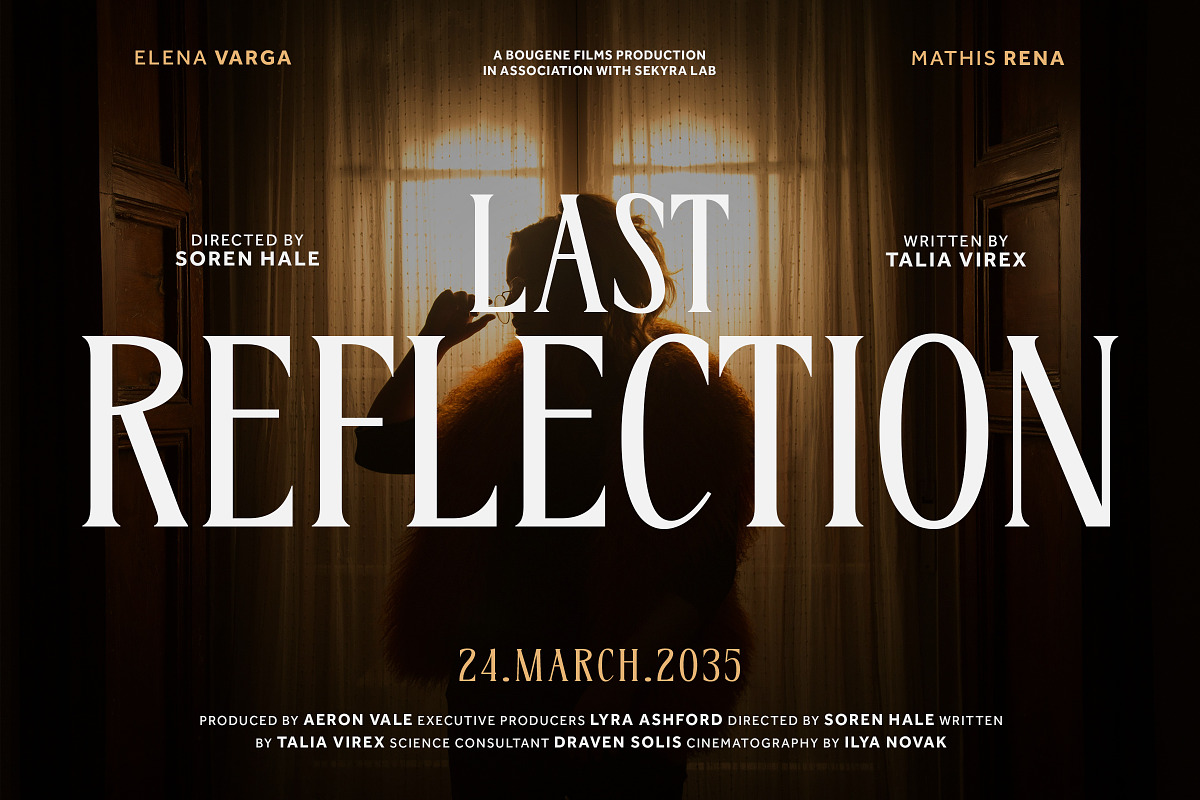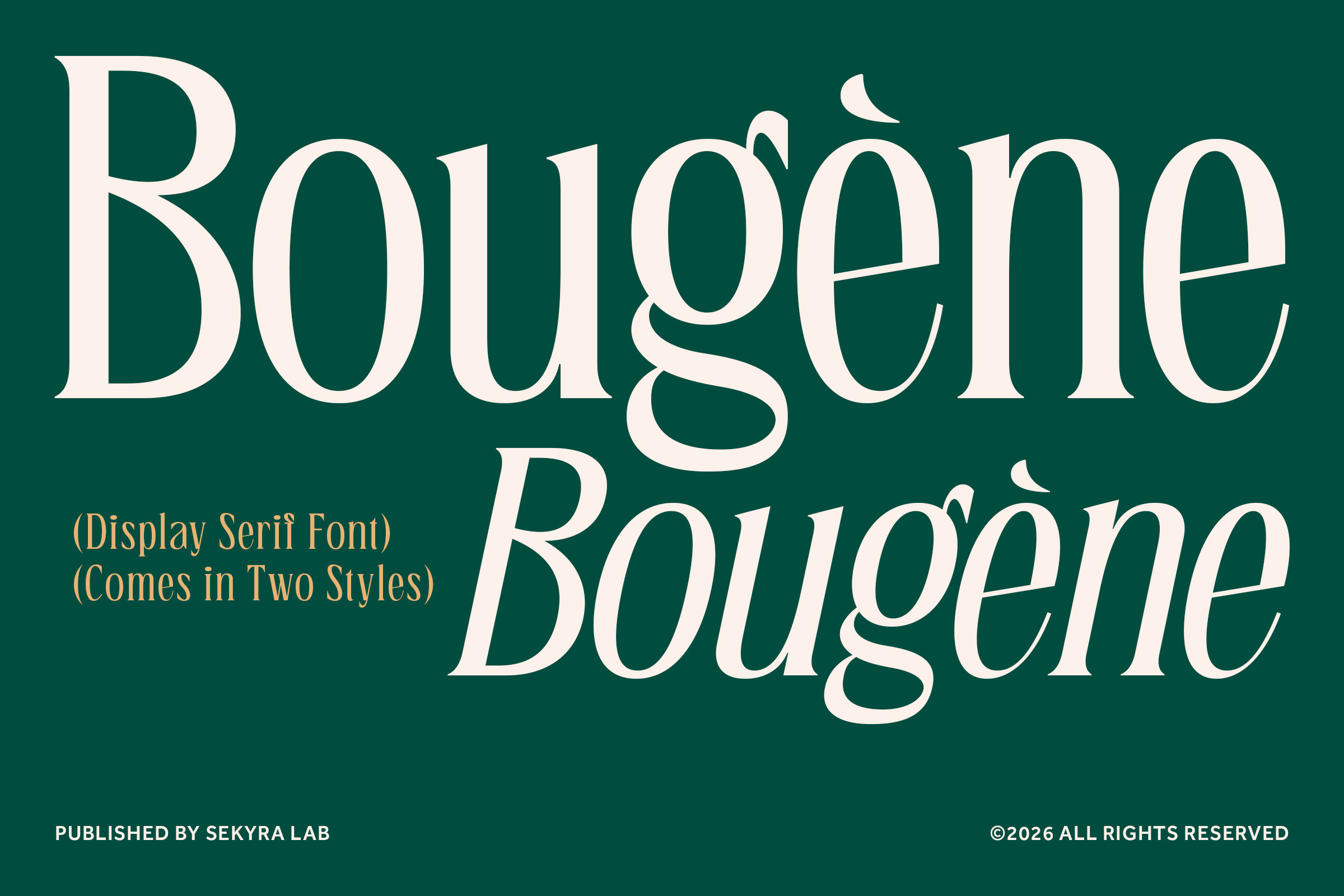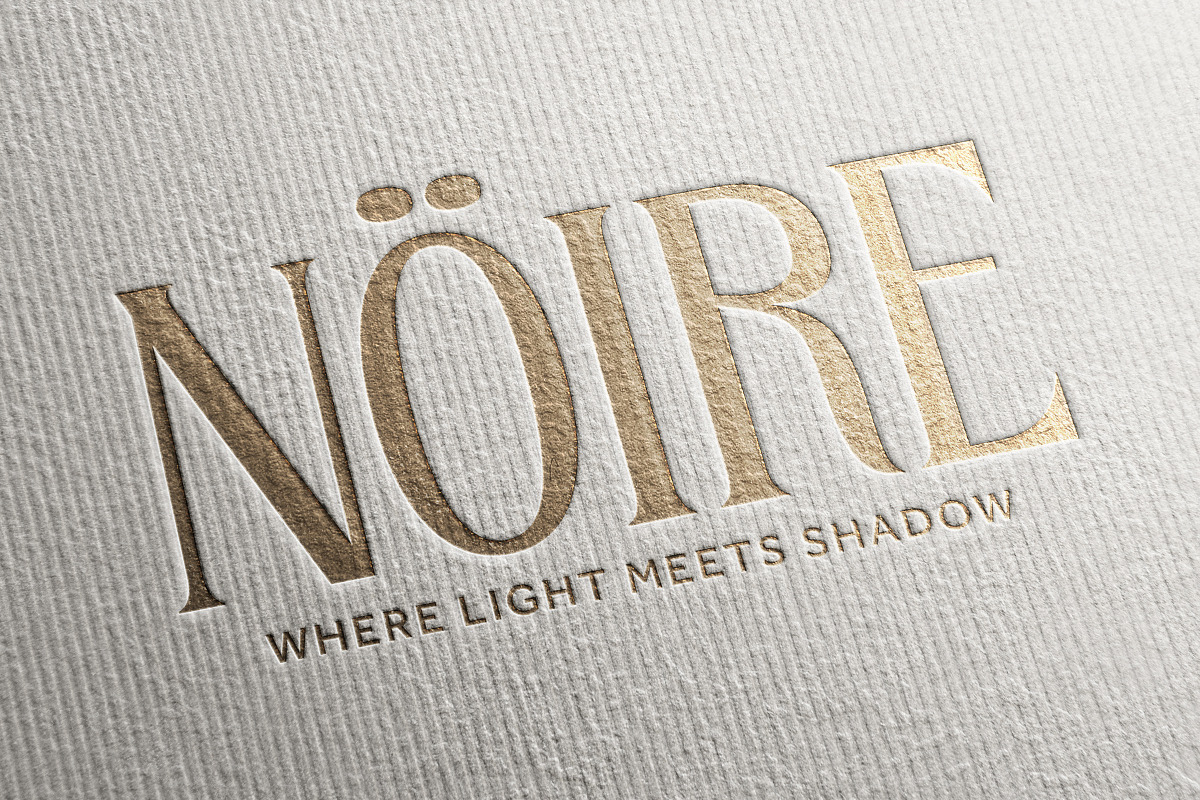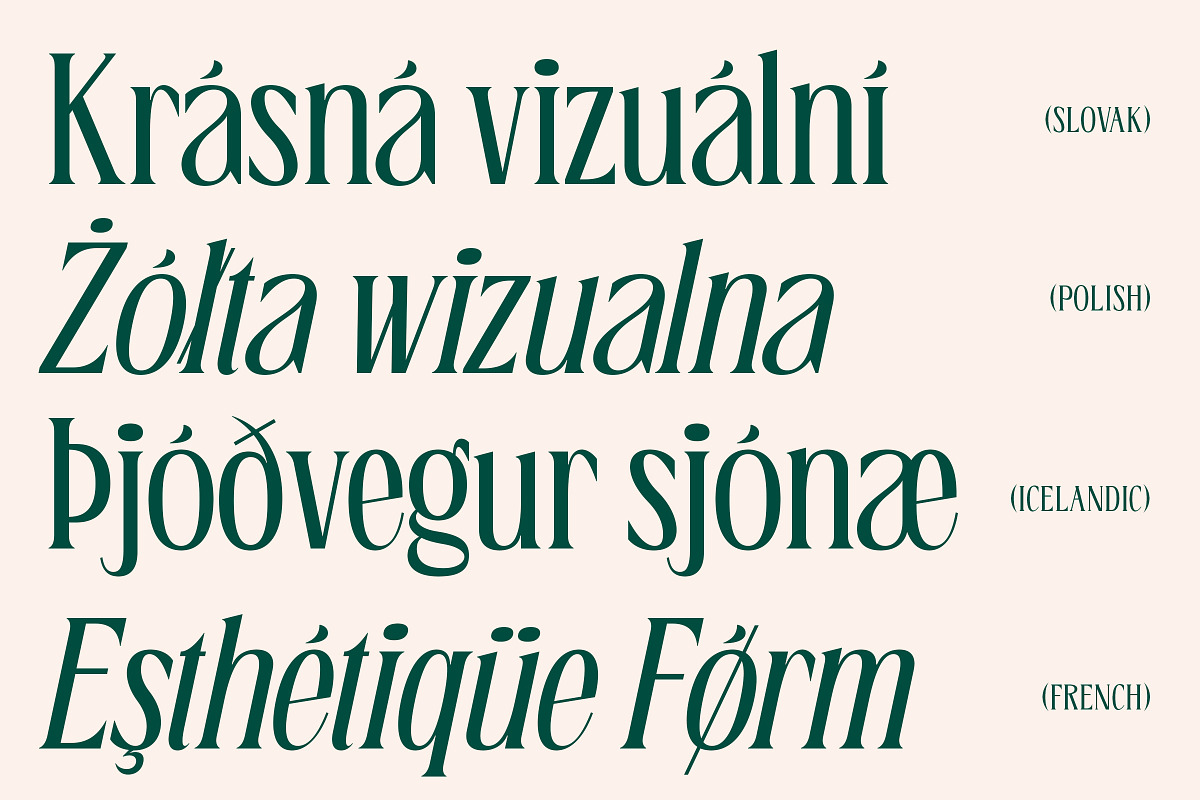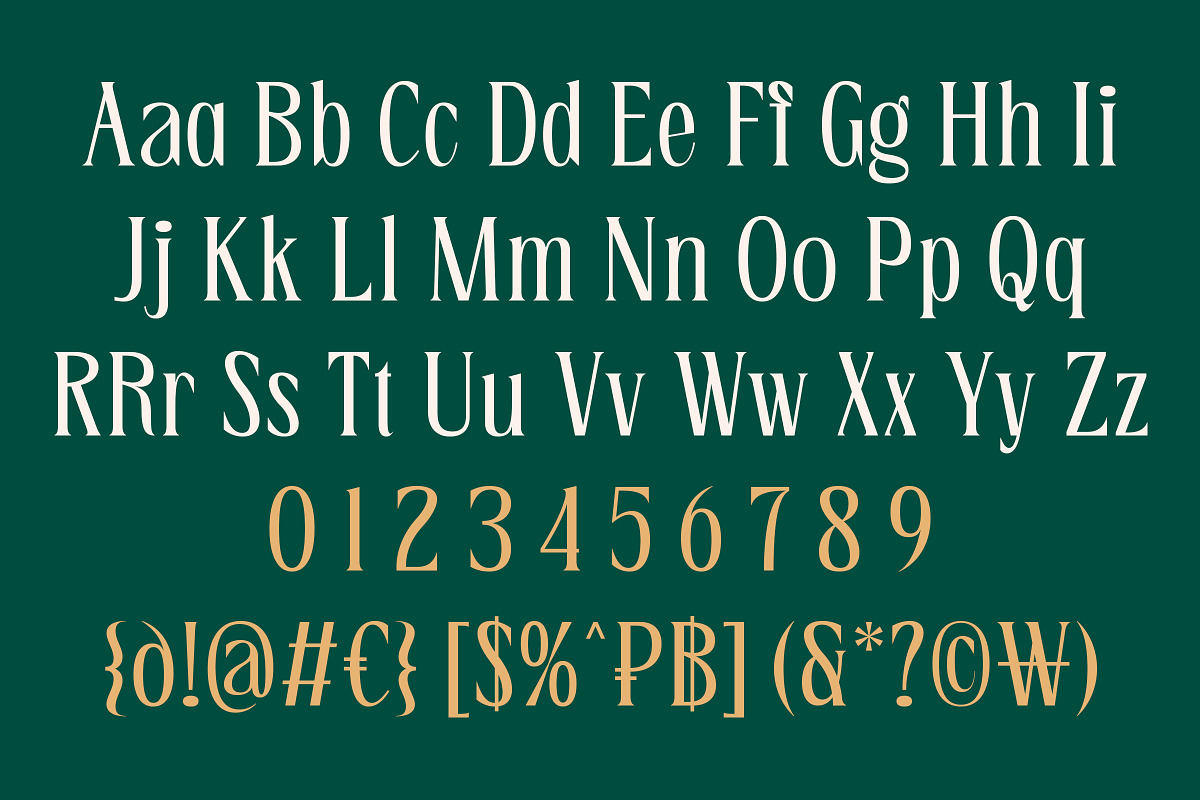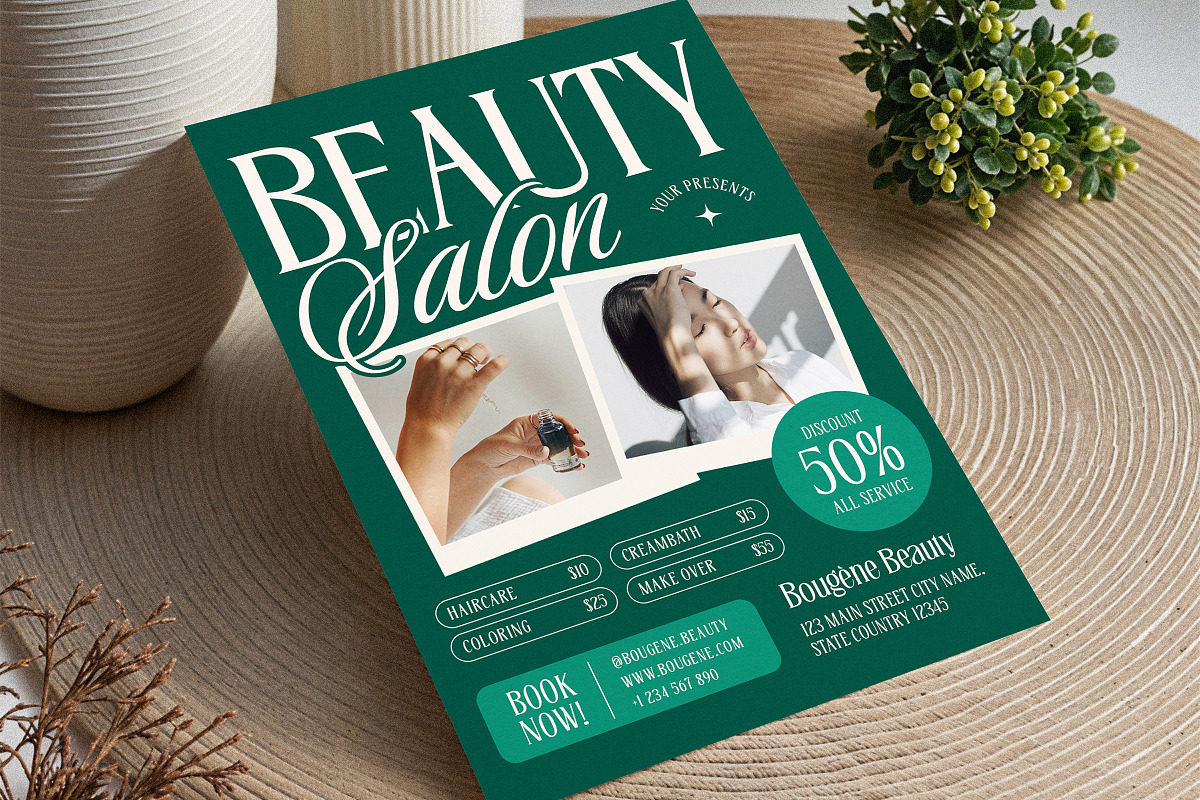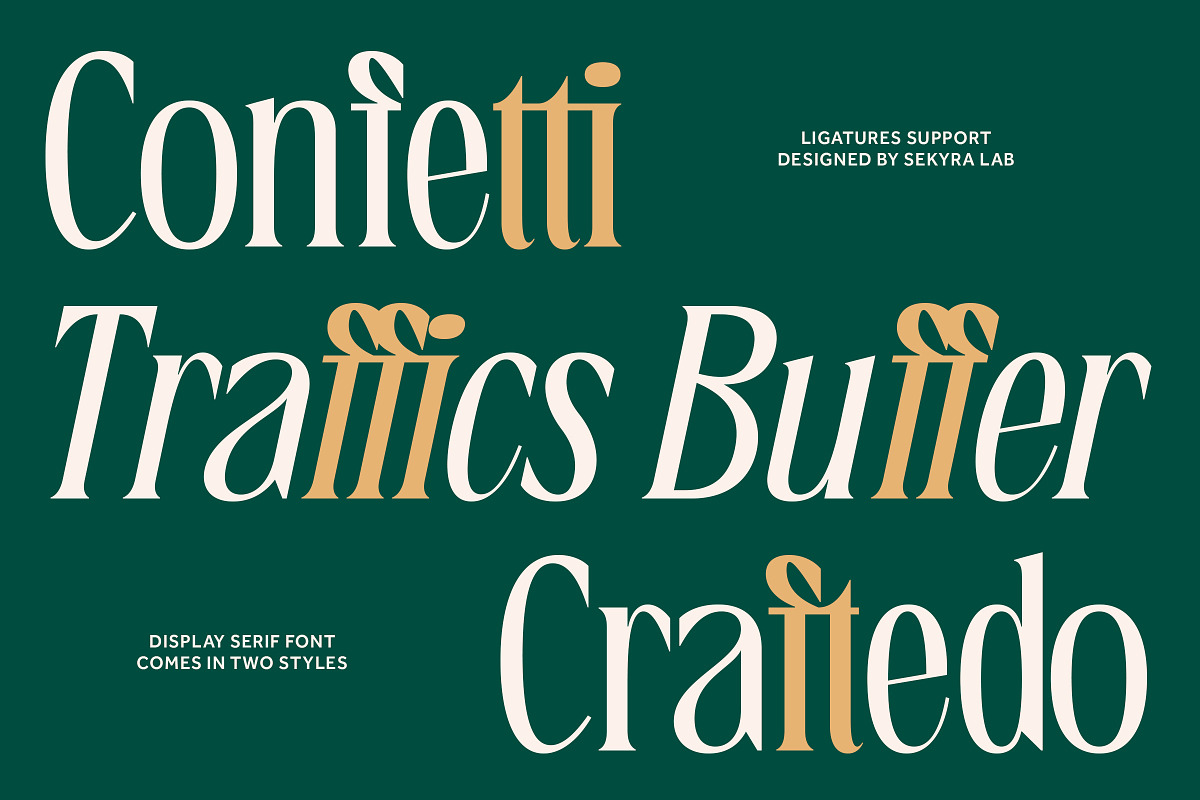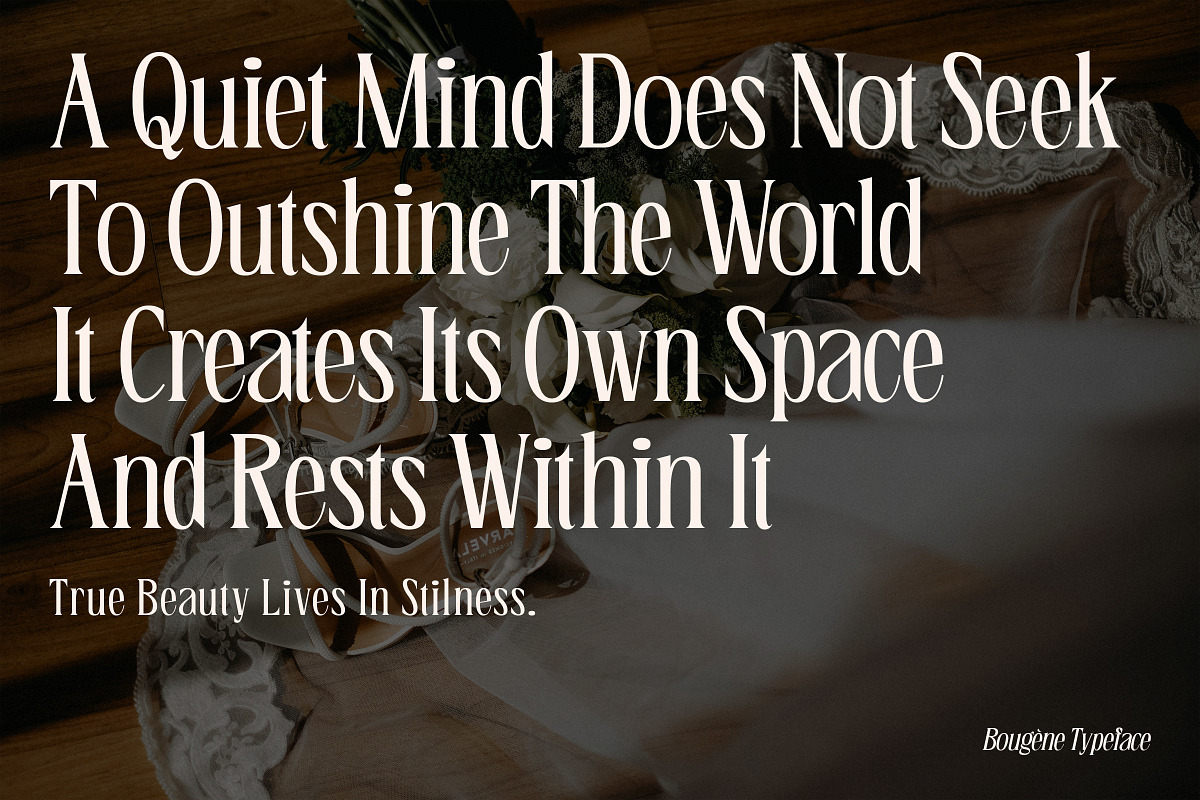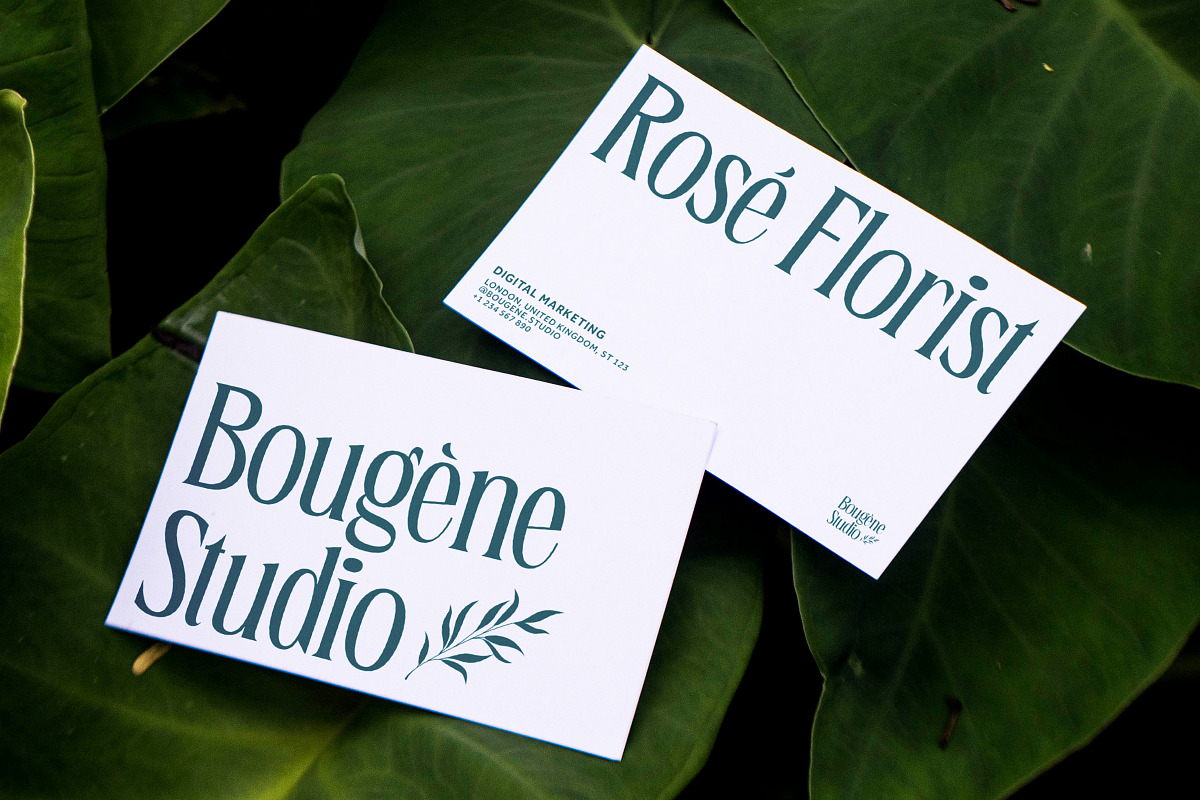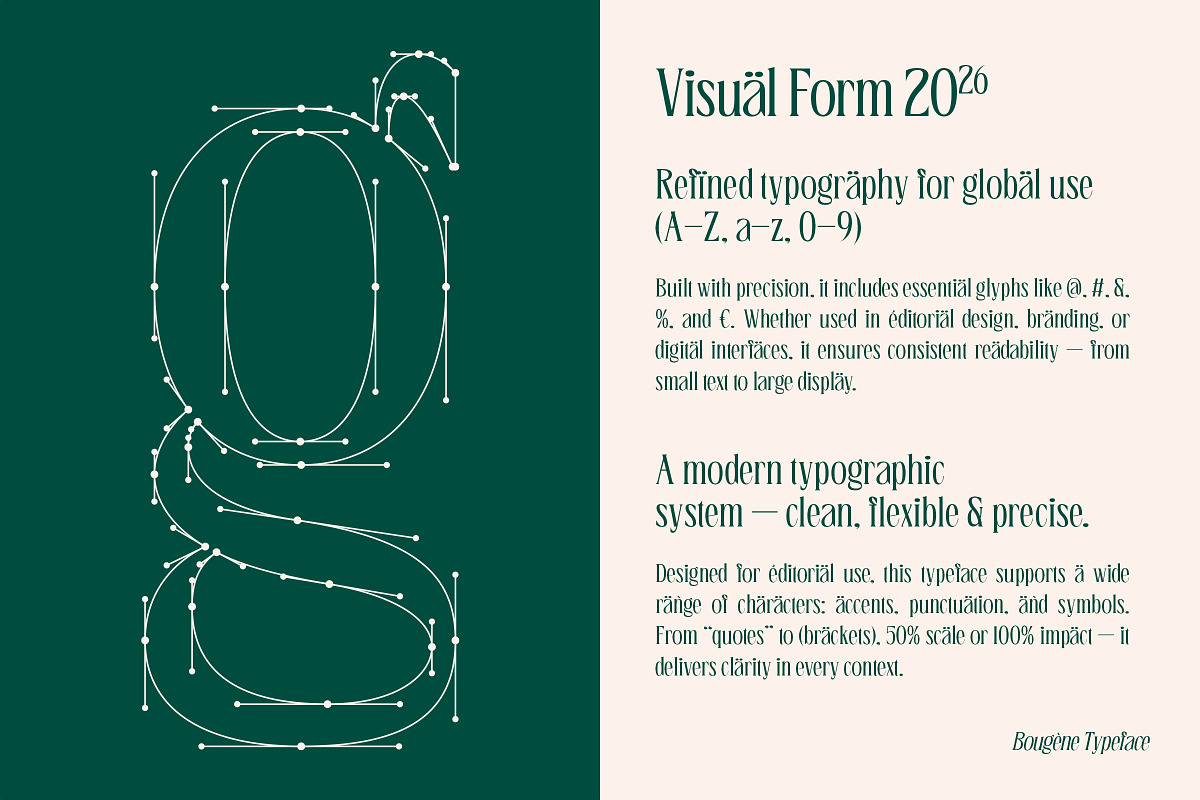
Bougene - Elegant Display Serif Font
Bougene is an elegant display serif font designed to bring sophistication and timeless beauty into your creative projects. With its refined letterforms, smooth curves, and subtle contrast, this font delivers a strong visual impact while remaining versatile for various design needs. Whether you're working on branding, posters, or digital content, it helps your work stand out effortlessly.
This font is perfect for designers looking to create luxury, editorial, and high-end visuals. Its unique style makes it suitable for both modern and classic-inspired designs, giving you flexibility across multiple creative directions. From bold headlines to eye-catching layouts, it ensures your typography grabs attention.